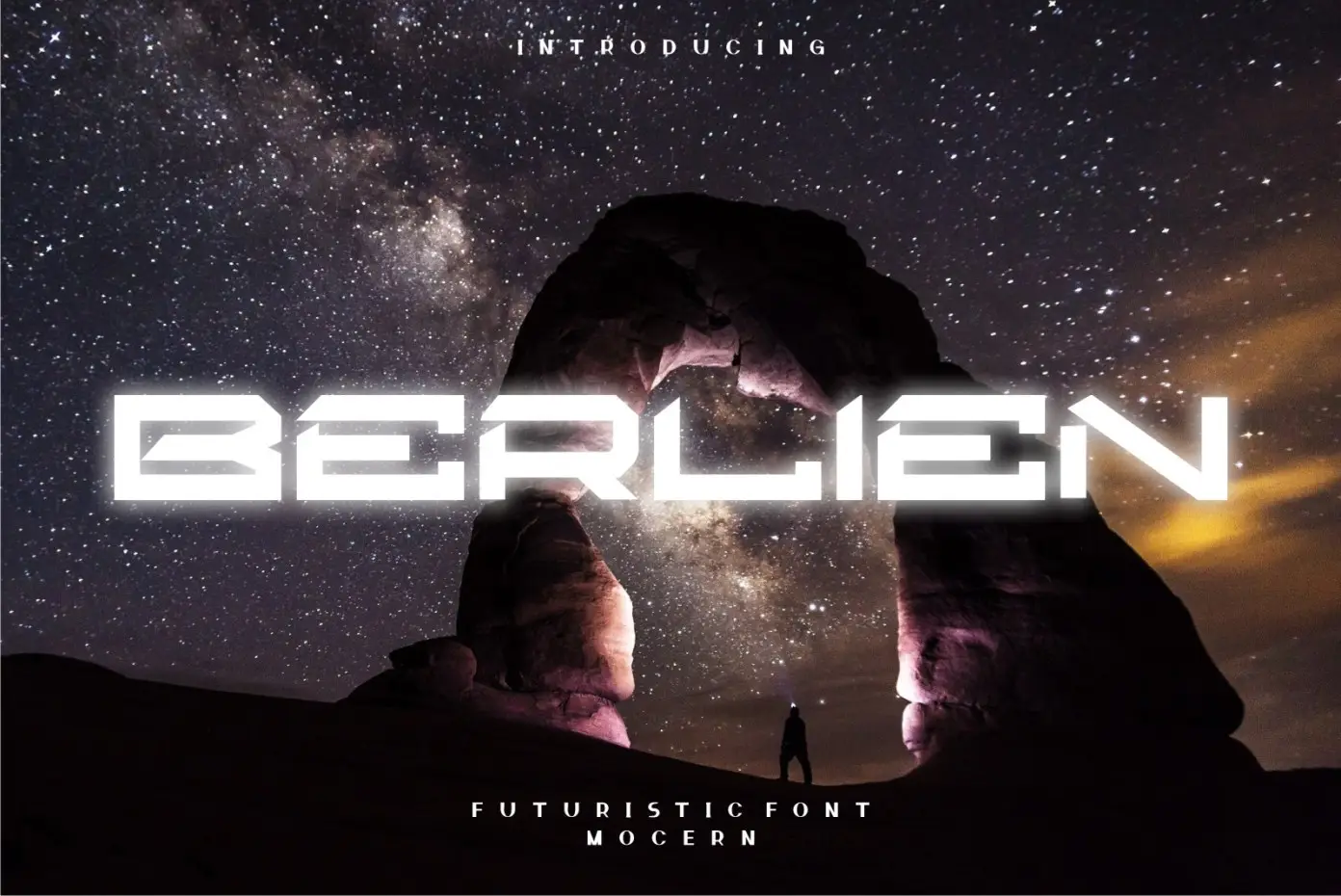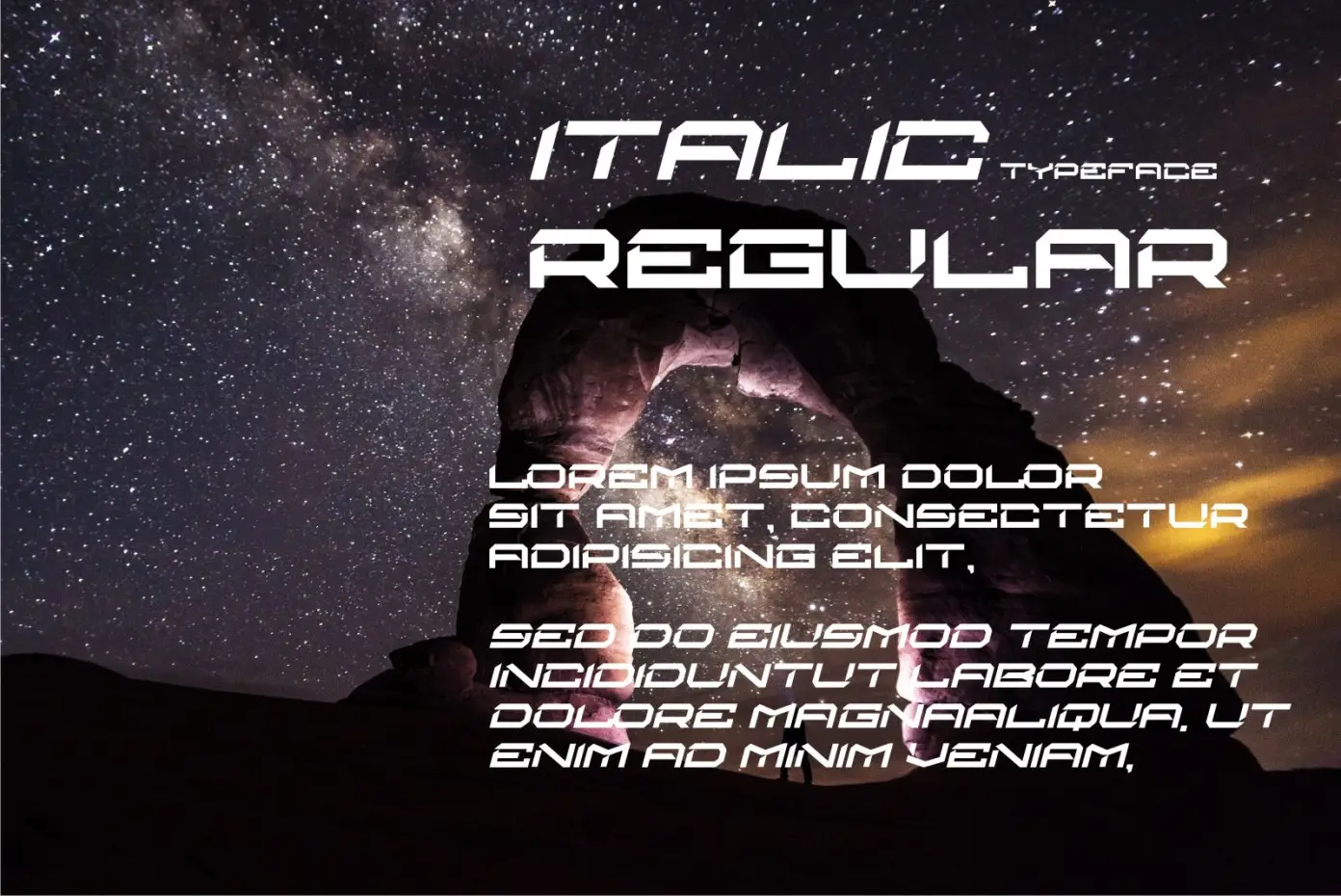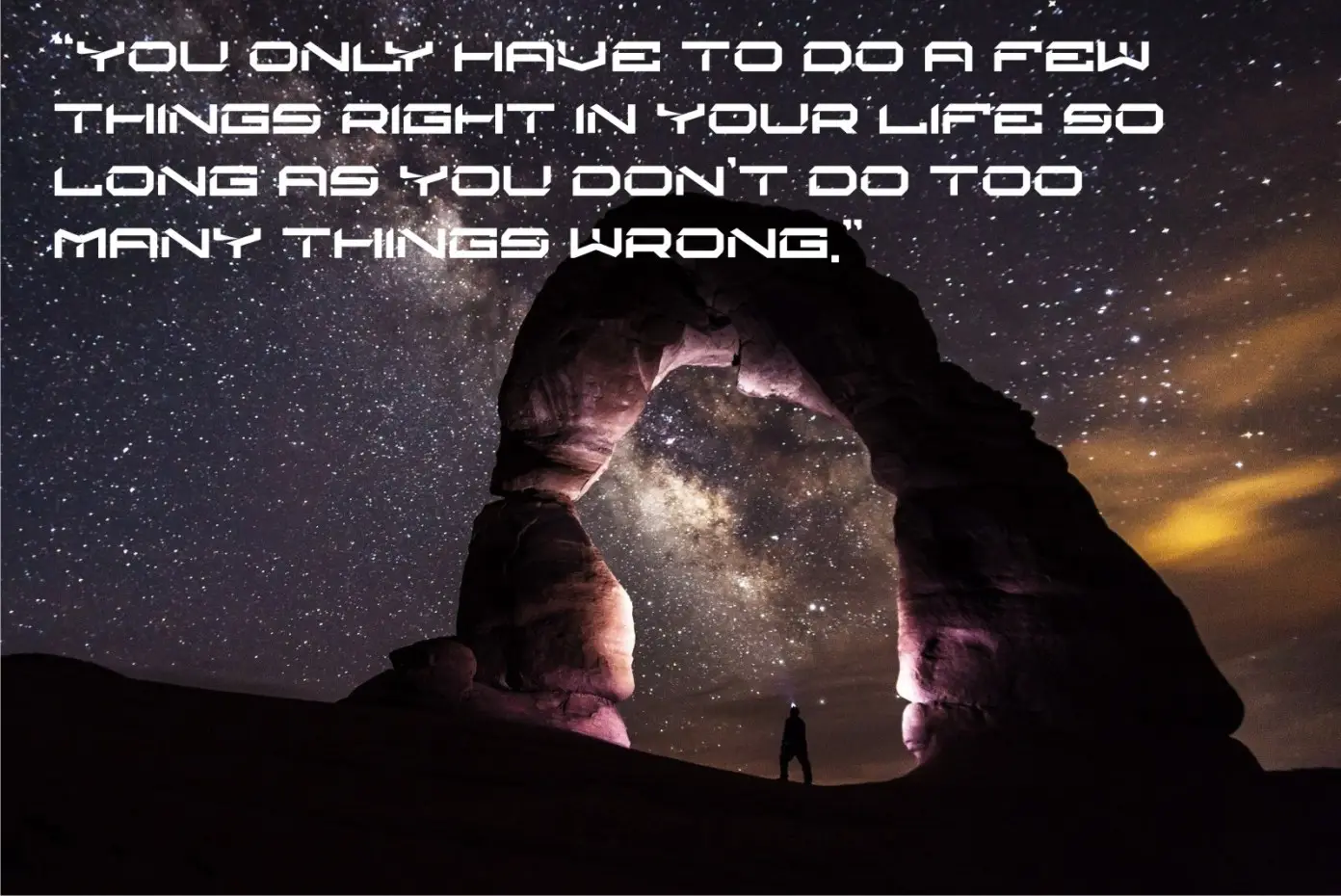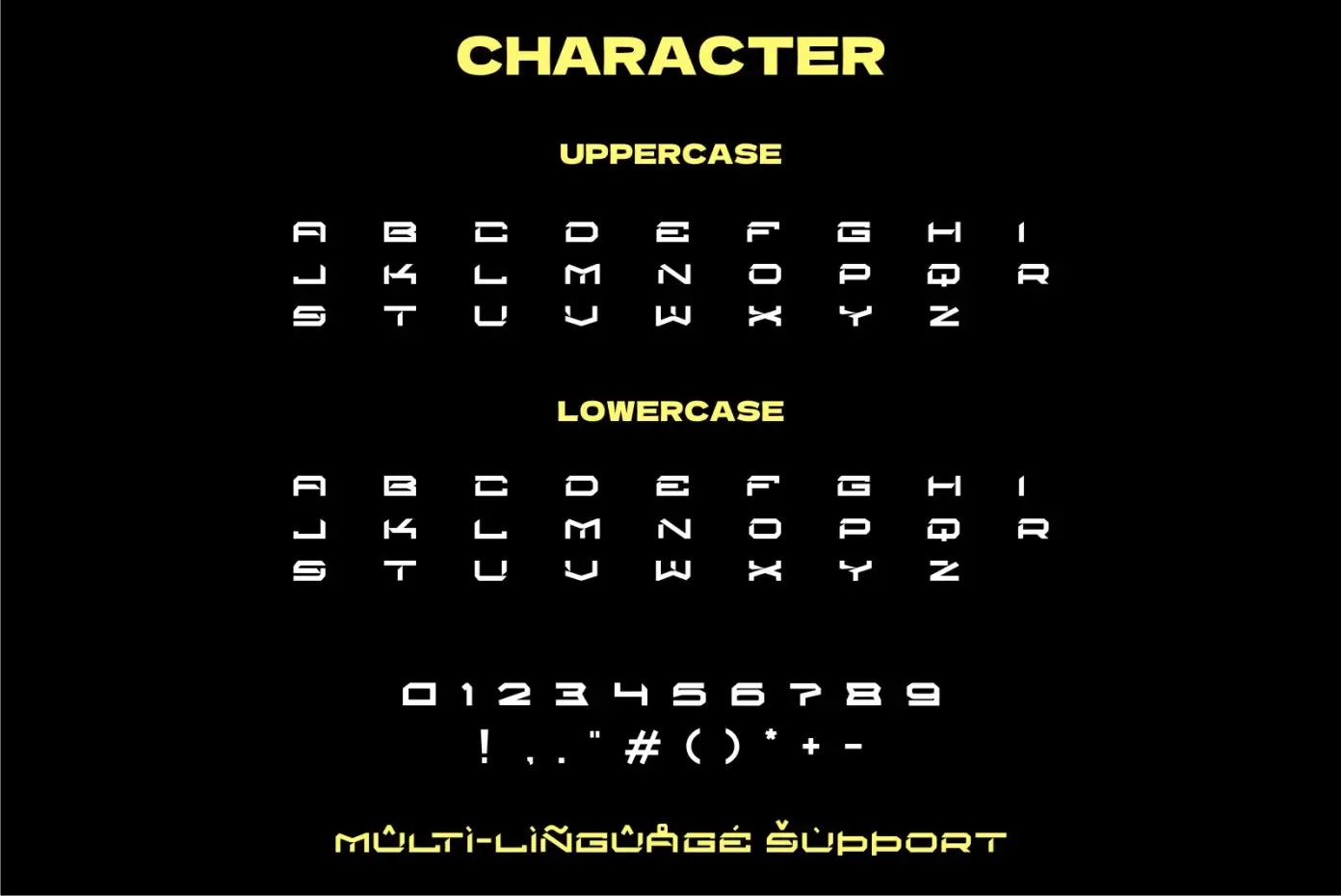
Berlien Font
The Berlein Font is a versatile typeface designed to bring elegance and clarity to your projects. With its unique blend of modern and classic elements, this font is perfect for a variety of applications, including branding, logos, web design, and print materials.
• Multiple weights for diverse usage
• Ideal for creating striking headlines and captivating logos
• Use in both digital and print formats for maximum impact
• Experiment with different weights to achieve the desired aesthetic